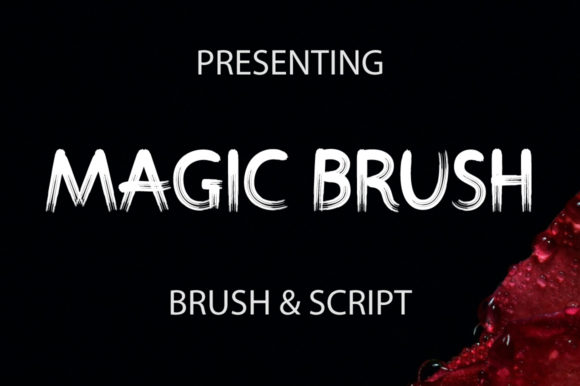
Introducing the Magic Brush Font, a delightful display font that will add a touch of charm and whimsy to your creative projects. This meticulously crafted brush font exudes an enchanting vintage vibe, reminiscent of nostalgic handwritten letters and vintage signboards. Its unique blend of playful strokes and elegant curves will captivate your audience, leaving a lasting impression wherever you use it.
With Magic Brush's versatile nature, the possibilities are endless. Whether you're designing eye-catching YouTube thumbnails, crafting captivating social media posts, or creating unique greeting cards and invitations, this font is your perfect companion. Its distinct character will elevate your designs, adding a personal touch that resonates with your audience. Magic Brush Font commands attention with its bold and captivating presence. Its striking strokes and dynamic curves create a visually engaging experience that keeps viewers hooked. Use it to create captivating headlines, logos, posters, and branding materials that leave a lasting impact.
YouTubers, rejoice! Magic Brush Font is your secret weapon for creating captivating YouTube thumbnails that stand out from the crowd. Its vibrant and playful style is sure to grab viewers' attention and entice them to click on your videos. Say goodbye to boring and uninspired thumbnails and hello to a surge in views and engagement.
Freelancers and creative professionals, prepare to be amazed by the transformative power of Magic Brush Font. With its distinctive style, you can create stunning designs that showcase your creativity and professionalism. Whether you're working on website designs, marketing materials, or social media campaigns, Magic Brush Font will elevate your projects to new heights.